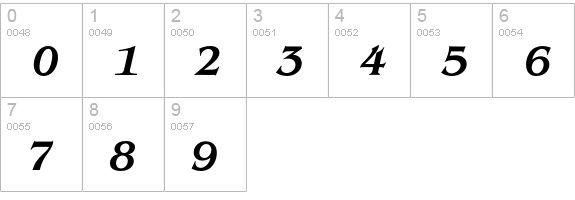
Benguiat* Medium Italic is a balanced, medium-weight, italic variant in the Benguiat* typeface family \xE2\x80\x94 well suited to sub-headlines, navigation, and balanced editorial work.
Benguiat Medium Italic font is an elegant and sophisticated typeface that exudes a sense of modernity and style. Its slanted and flowing design adds a touch of creativity to any project, making it perfect for use in branding, advertising, or editorial design. The medium weight strikes a perfect balance between boldness and readability, making it versatile for a wide range of applications. What sets Benguiat Medium Italic font apart is its ability to convey a sense of sophistication and class while still maintaining a contemporary edge. Whether used for headlines, subheadings, or body text, this font adds a touch of flair and personality to any design. The best part? Benguiat Medium Italic font is freely available to download at FontsMarket.com, making it accessible to designers and creatives looking to elevate their projects with a touch of elegance. Don't miss out on the opportunity to enhance your designs with this stunning font today.